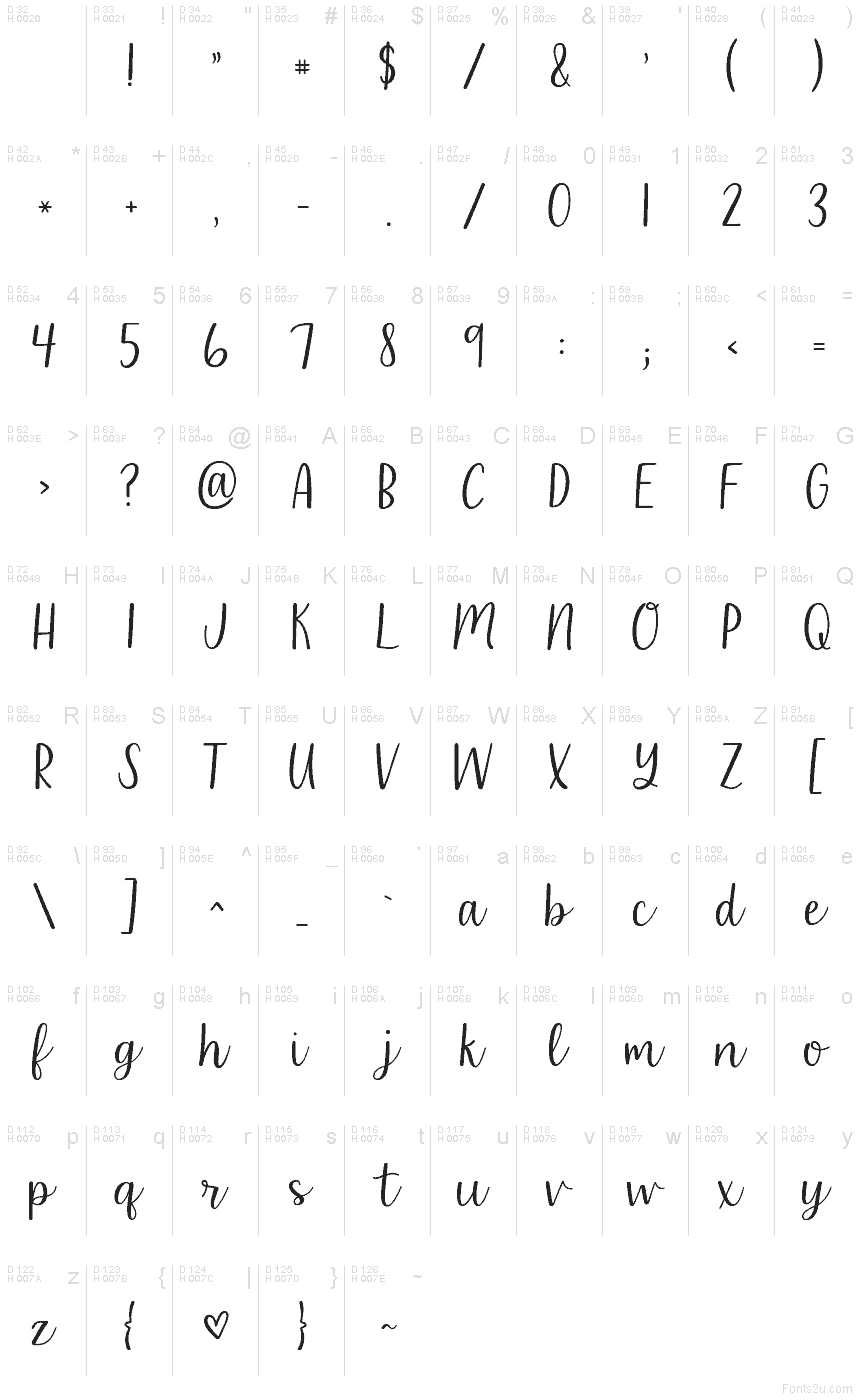
KG Only Girl in the World Norm
KG Only Girl in the World Norm font by Kimberly Geswein embraces a casual elegance with its smooth flow and romantic feel. This free handwritten font boasts a modern script style, making it ideal for conveying gentle and sincere messages effortlessly.
The font's authenticity is suitable for wedding invitations, event collateral, greeting cards, apparel design, logos, packaging design, stationery design, product branding and labels. Bloggers can also benefit by highlighting their social media posts and quote graphics with expressive typographic beauties.